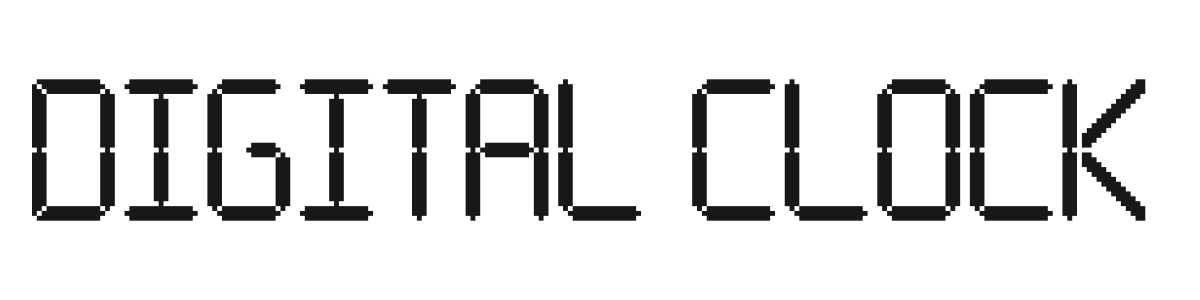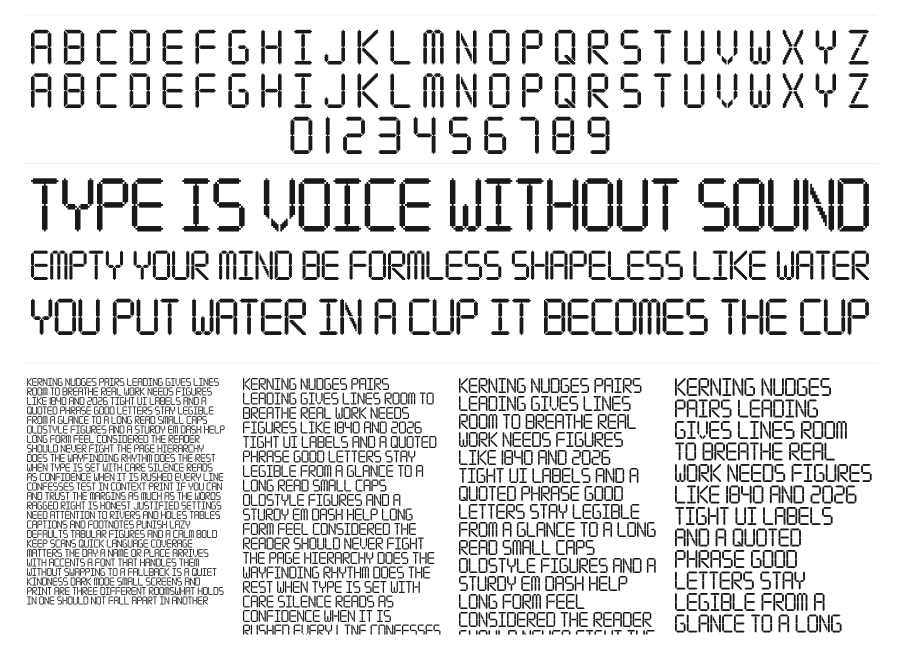
Digital Clock
Digital Clock is a pixel-art LCD font inspired directly by the segmented readout of a digital clock face. Each character is built from chunky rounded rectangular blocks arranged on a pixel grid, giving it that unmistakable retro-electronic warmth. It sits naturally in gaming interfaces, lo-fi tech branding, and any context that wants to evoke blinking displays and old hardware.